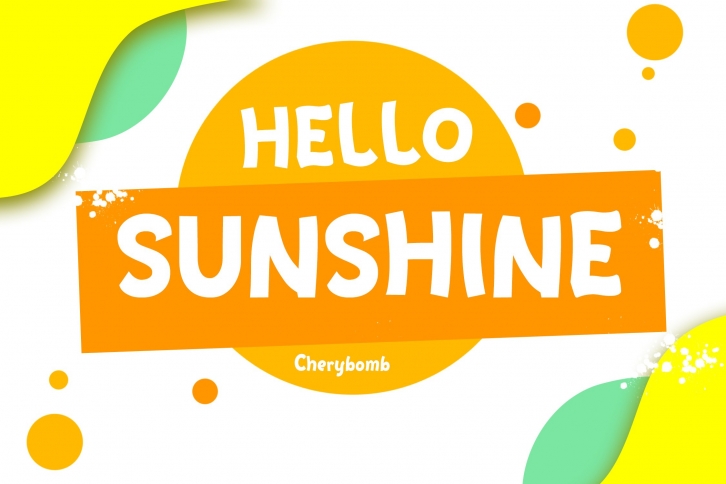
Chery Bomb is a trendy and unique font with an authentic style. It was designed by Typia nesia and it's a great choice for creative people who need such a font. It was released on November 19, 2020 and the file size is 17.42 MB. Chery Bomb will add an organic vibe to any design idea!